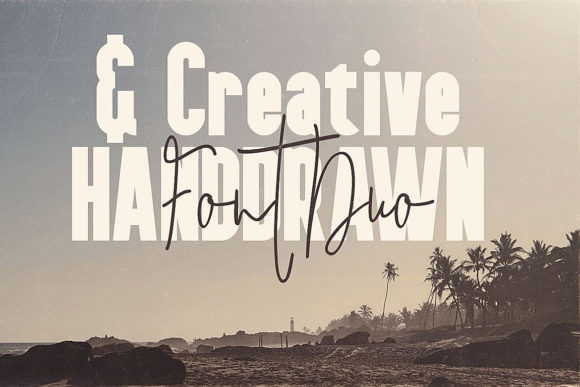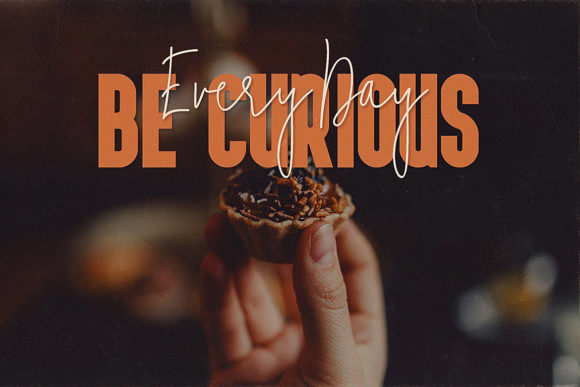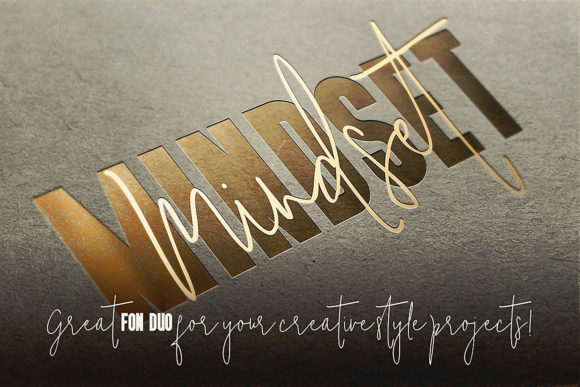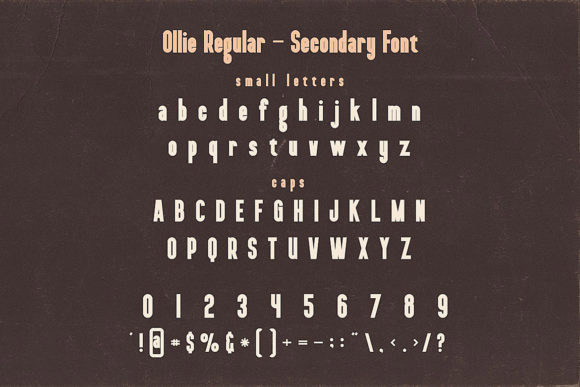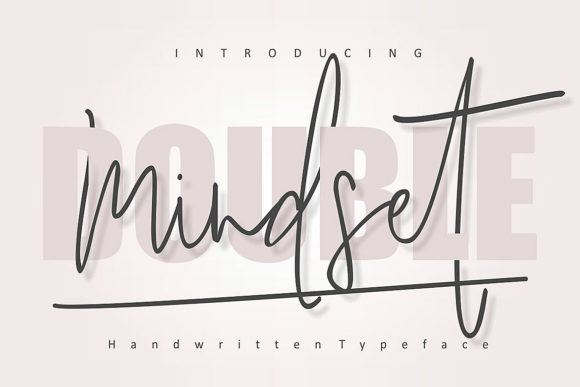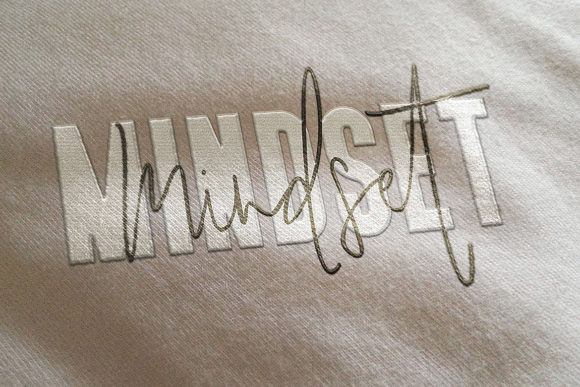
Introduction to Mindset Duo Font
Have you ever stared at a blank page, struggling to find the perfect font to bring your creative project to life? It’s a moment we’ve all been there – the blank page staring back, taunting us to make the perfect choice. But what if you could unlock a world of creative possibilities with just one download?
That’s exactly what the Mindset Duo Font offers – a game-changing design resource that includes a beautifully crafted handwritten script style and a bold sans serif font, perfectly paired to elevate your creative projects. With the Mindset Duo Font, you can create a multitude of unique designs, all with a free download that’s available for you to use right away.
As a designer, you know how valuable it is to have high-quality design elements at your fingertips. The Mindset Duo Font is a must-have for anyone looking to take their designs to the next level, with a transparent background that makes it easy to use in any project.
Key Features of Mindset Duo Font
- Unique Dual-Face Font Design: The Mindset Duo Font offers a distinctive dual-face design, perfect for adding depth and visual interest to creative projects.
- High-Quality Typography: This font is designed with high-quality typography in mind, making it ideal for use in a variety of design applications, from print to digital media.
- Transparent Background: The Mindset Duo Font features a transparent background, allowing designers to easily place the font over any image or background without any visual obstructions.
- Resolution and Size: The font is designed to be scalable, with a resolution of 300 DPI and a size range of 12-72 points, making it suitable for use in a variety of design contexts.
- Perfect for Creative Projects: The Mindset Duo Font is an excellent choice for designers working on creative projects, such as branding, advertising, and editorial design.
Honest Review: Mindset Duo Font
I recently stumbled upon the Mindset Duo Font while searching for a unique design resource for a creative project. I was impressed with the high quality and versatility of this font, which is available for free download. The transparent background made it easy to integrate into my design.
- ✨ The font’s modern and elegant design makes it perfect for a wide range of creative projects.
- ✨ The transparent background allows for seamless integration into any design.
- ⚠️ The font is limited to two styles, which may not be suitable for projects requiring multiple font styles.
- ⚠️ Some users may find the font’s modern design too trendy or overpowering.
Overall, I’m impressed with the Mindset Duo Font. Its high quality, modern design, and free download option make it a valuable design resource. While it may not be suitable for every project, it’s definitely worth considering for creative projects requiring a unique and elegant font.
Mindset Duo Font
The Mindset Duo Font is a free design resource that offers a unique and creative way to express your ideas. With a transparent background, this font is perfect for adding a touch of elegance to your high-quality projects.
For more advanced users, Adobe Photoshop and Illustrator offer a range of features that allow you to manipulate the Mindset Duo Font in high detail. Use the font to create intricate designs and graphics.
The Mindset Duo Font can also be used in Microsoft PowerPoint and Word to add a touch of sophistication to your presentations and documents.
Experiment with different font sizes and colors to create a unique visual effect. Use the font in combination with other design elements to add depth and interest to your project.
The Mindset Duo Font is perfect for creative projects such as brochures, business cards, and social media graphics. It’s also great for adding a touch of elegance to presentations and documents.